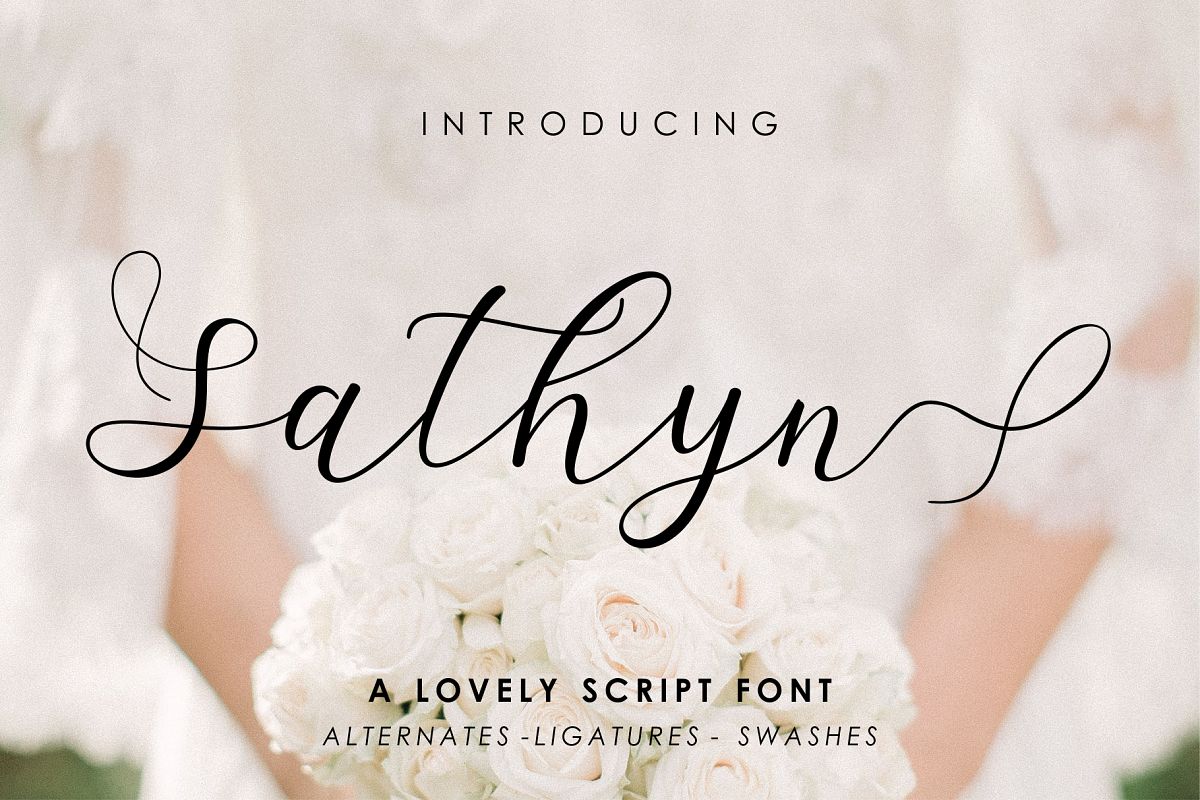
Sathyn Lovely Script Font
Introducing the Sathyn Script Font ! Sathyn was built with OpenType features and includes beginning and ending swashes, numbers, punctuation, alternates, ligatures and it also supports other languages.What's Included ?